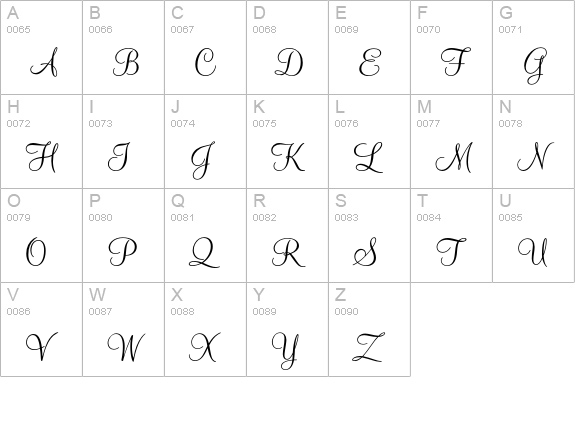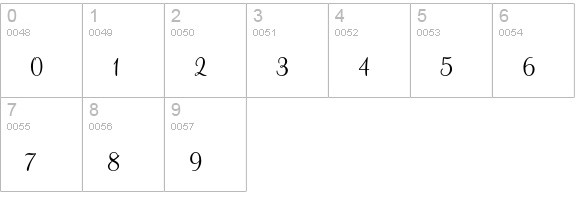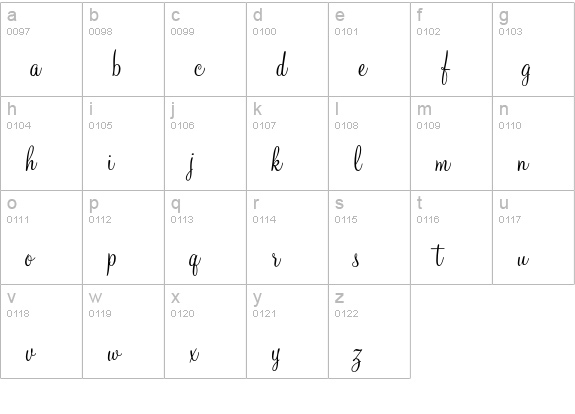
Monterey Font Details
Monterey font is a modern and stylish typeface that exudes elegance and sophistication. With its sleek lines and clean design, Monterey font is perfect for a variety of design projects, from branding to advertising to editorial layouts. This versatile font is sure to make your text stand out and capture the attention of your audience. The best part? Monterey font is completely free to download at FontsMarket.com. So you can enhance your projects with this beautiful typeface without breaking the bank. Whether you're a designer, a student, or anyone looking to add a touch of class to your work, Monterey font is the perfect choice. Download it today and start creating stunning designs with ease.